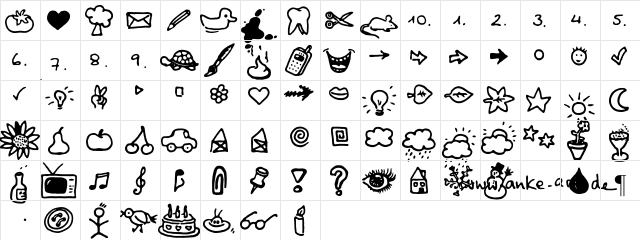
BulletMix Regular
Design Context for BulletMix Typeface
BulletMix is a composed and adaptable typeface that performs quietly and consistently across a wide range of design contexts.